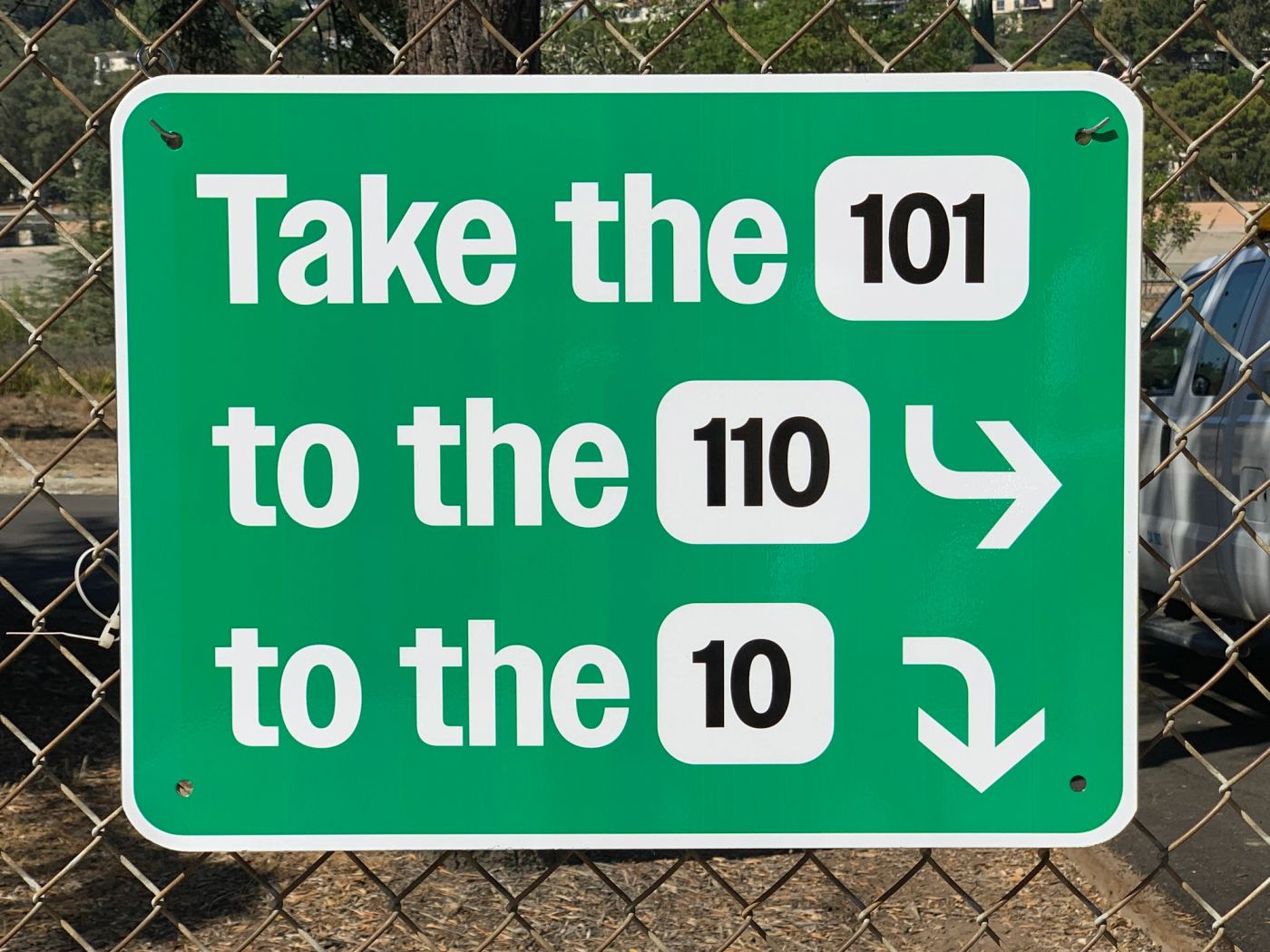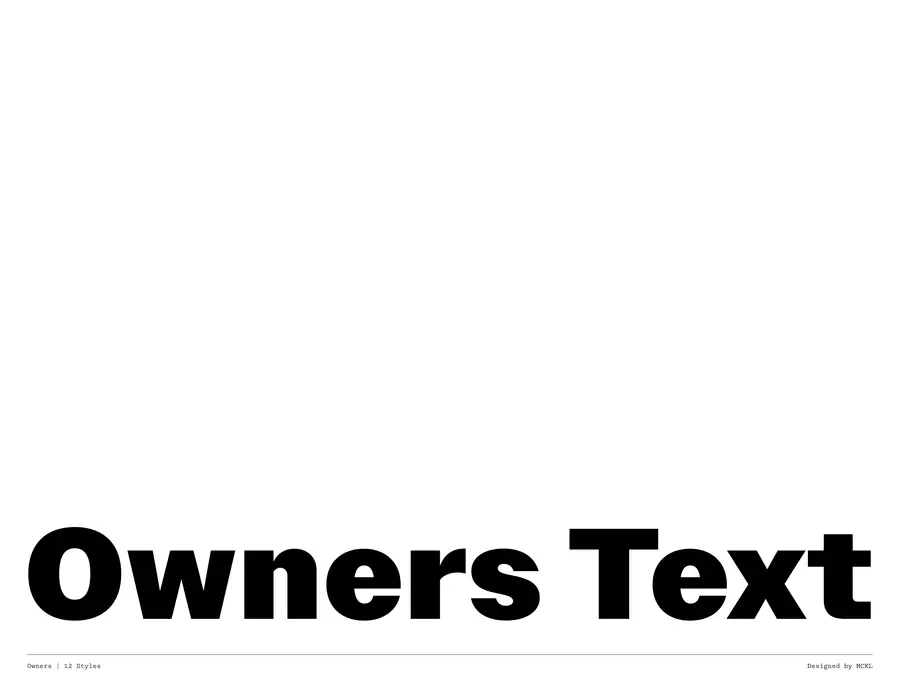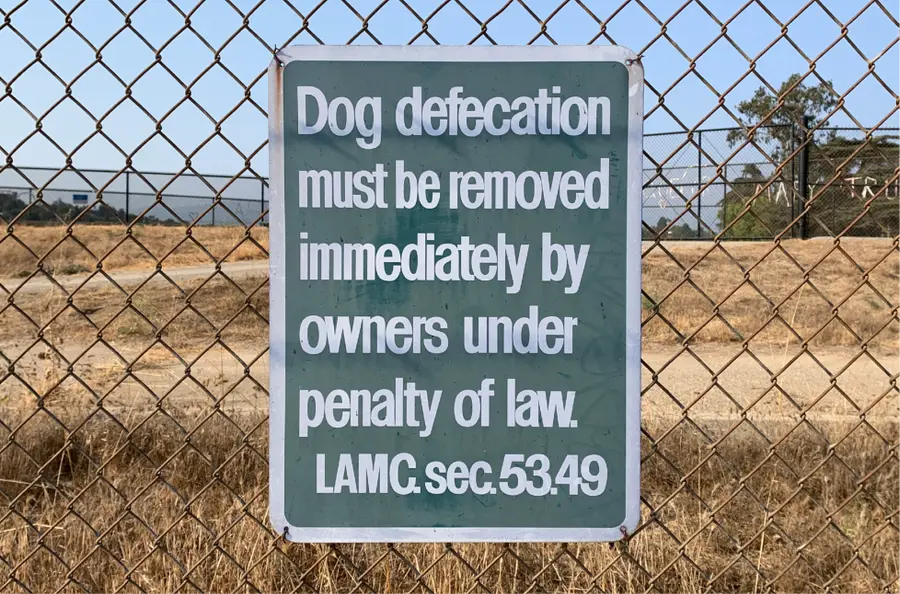
Owners Text
- 12 styles 6 weights Roman and Italic
- Designed by Jeremy Mickel Published in 2021
Owners is an expressive family of fonts that takes inspiration from the dynamic energy of handmade signage as seen around Los Angeles. These signs were made in the International Style, but warmed up through the quirk and charm of vernacular signmakers’ unique approaches to letterform construction.
As signs come in all shapes and sizes, the letters are often stretched to fill necessary spaces, thus Owners has a diverse range of weights and widths. The fonts are set tightly for maximum headline impact and logo-like presence, and there are also Text versions for use at small sizes.
OpenType Features
Straight Leg Rss06
RAY®
RŔŘŖ®
Round dotsss05
“Again?”
¿¡“’ij.,:;’”!?
Circular Numbersss07
123
0123456789
Filled Circular Numbersss08
456
0123456789
Schoolbook a yss01
Sanity
áăâäàāąåãyýŷÿ
Alternate Qss02
QUIET
Q